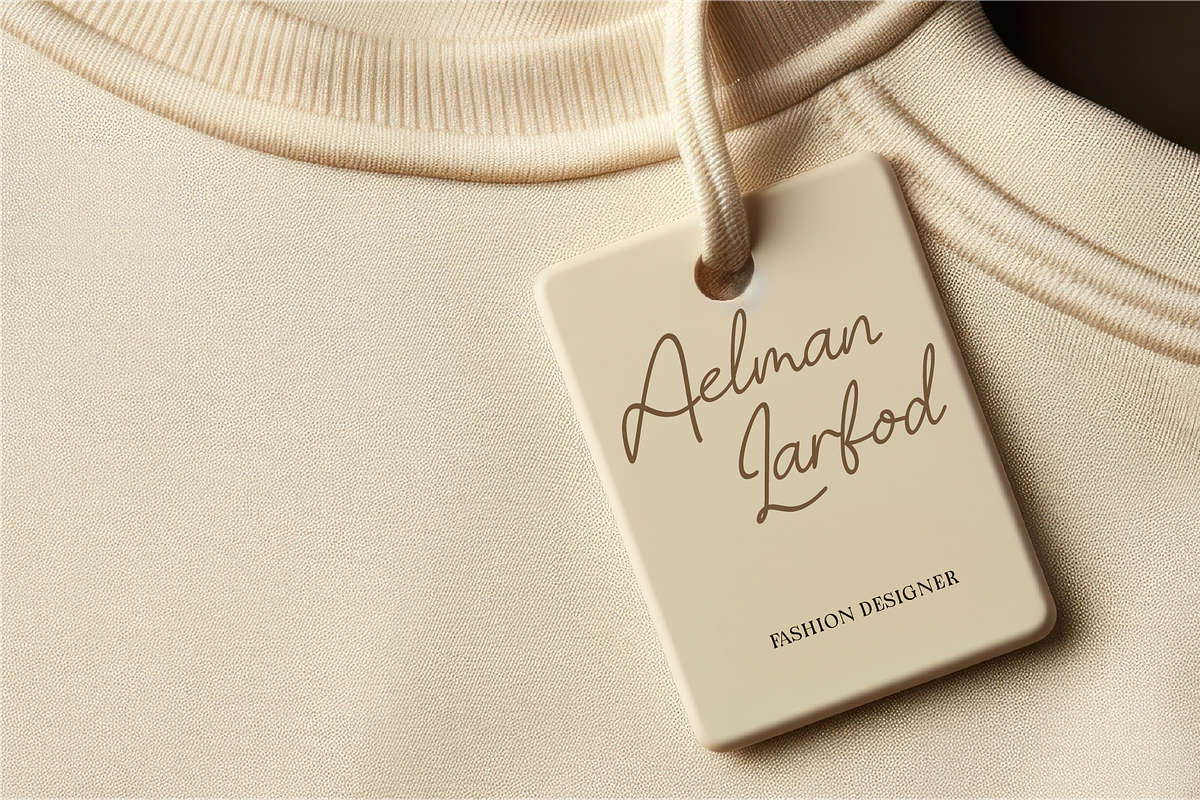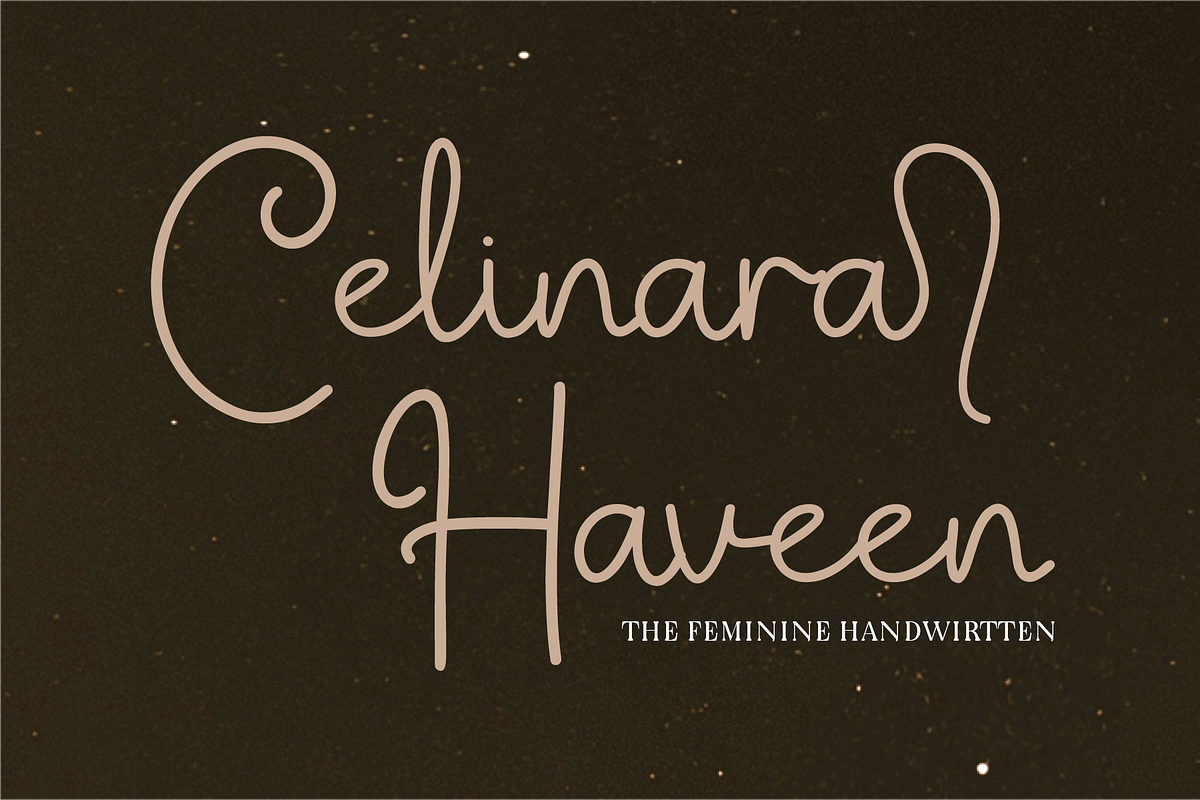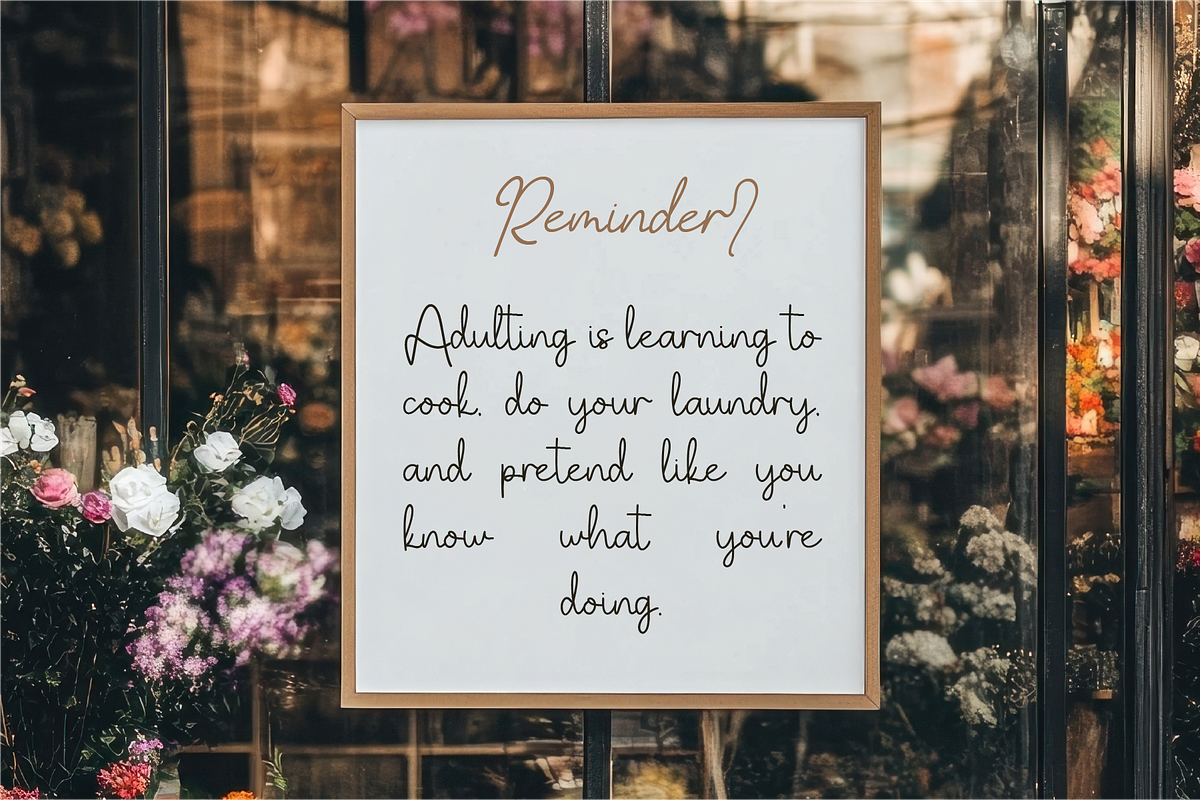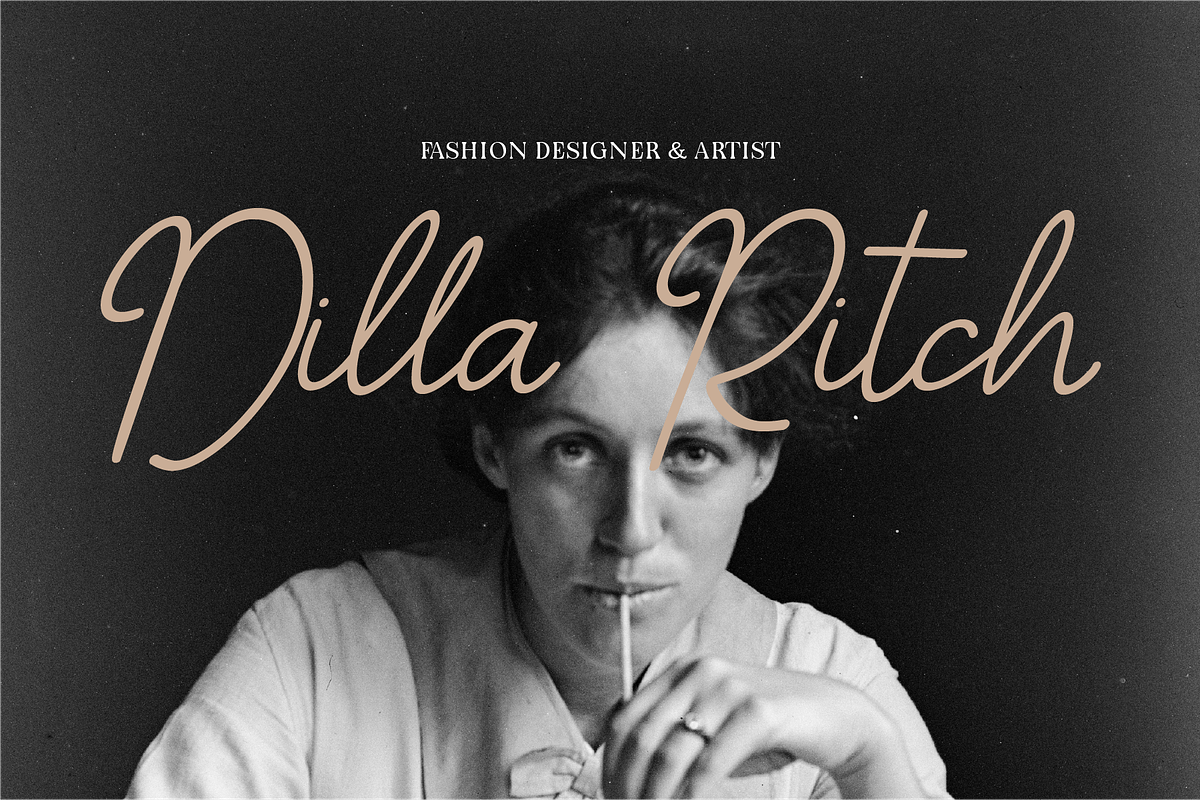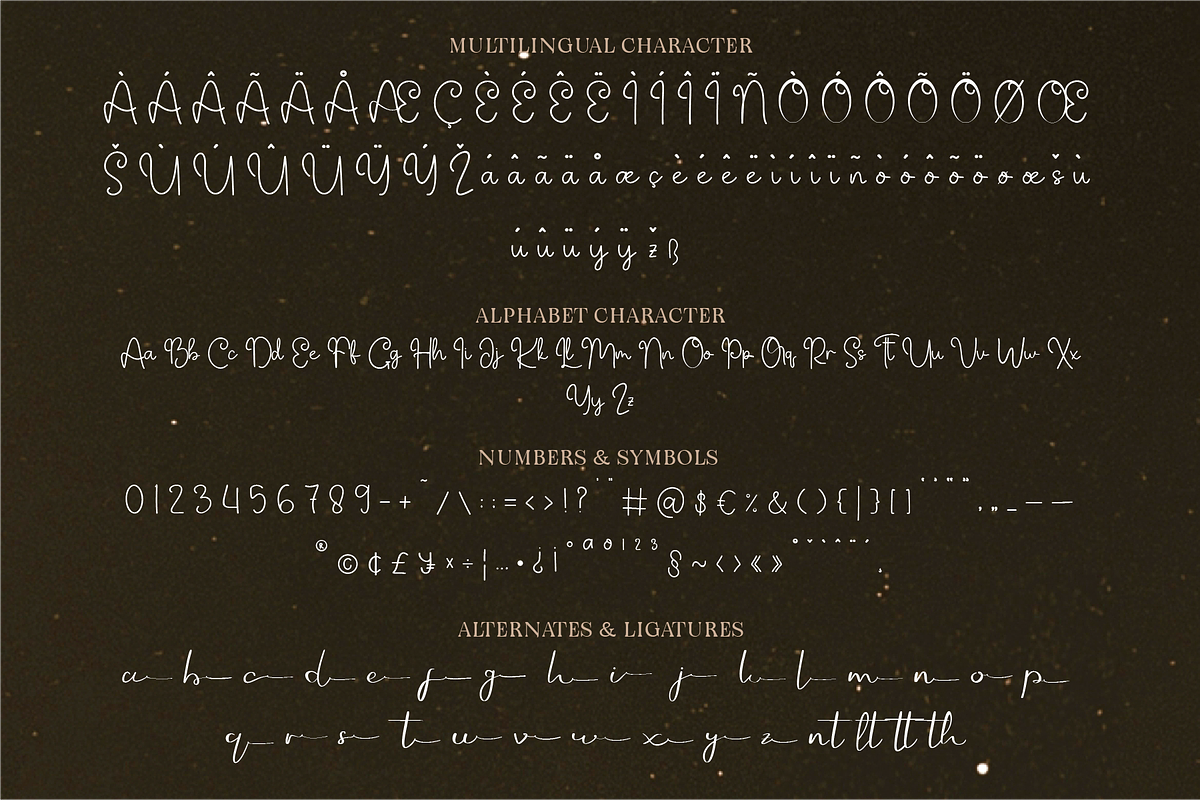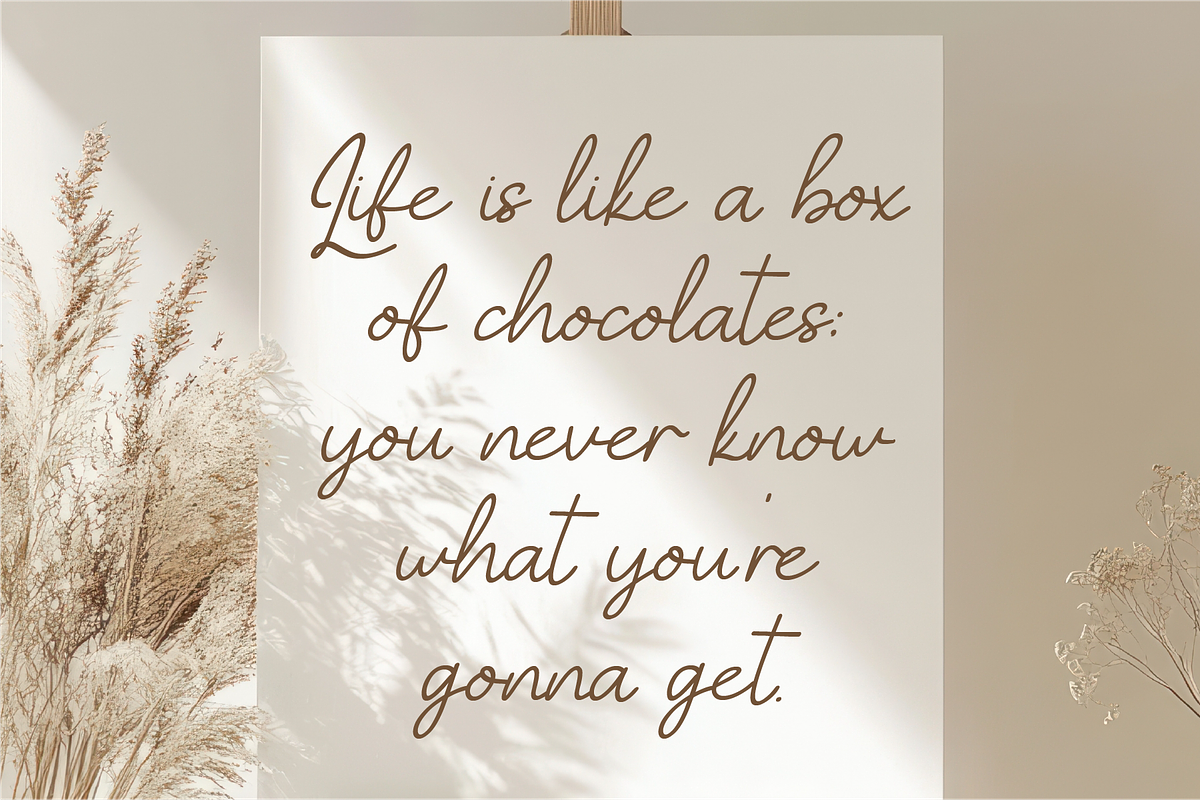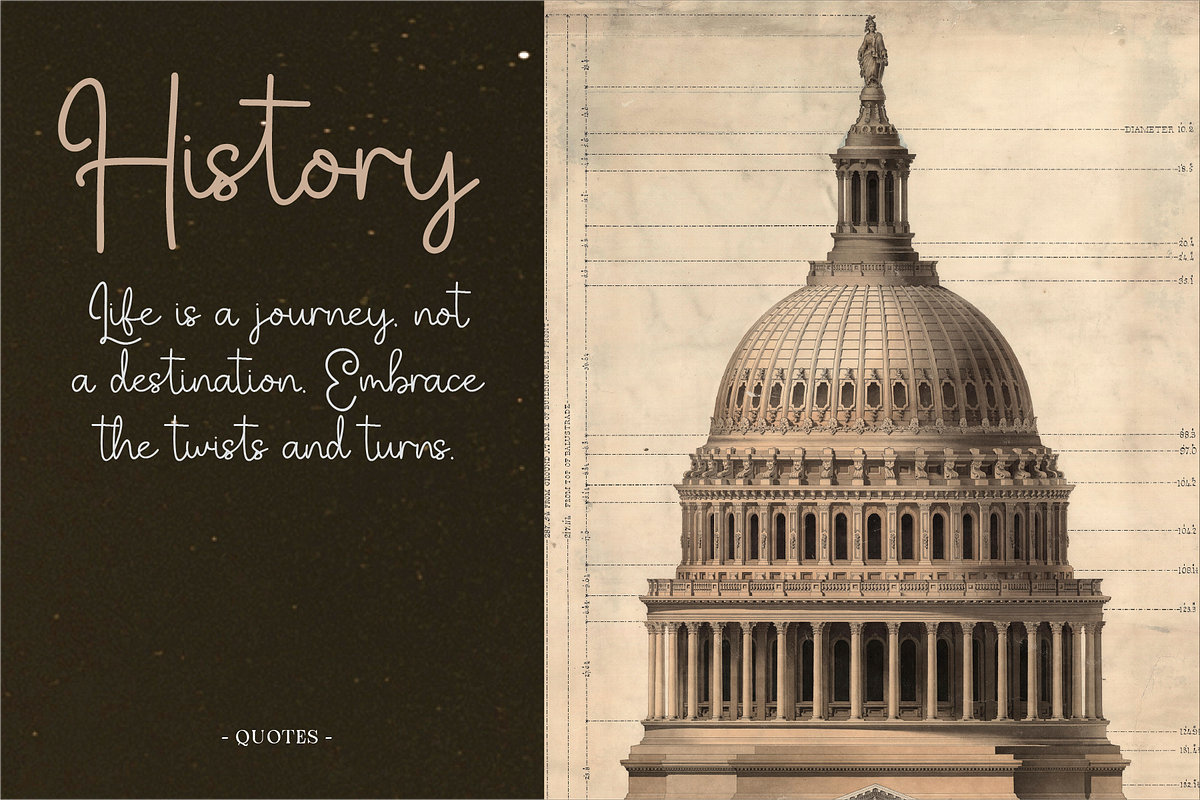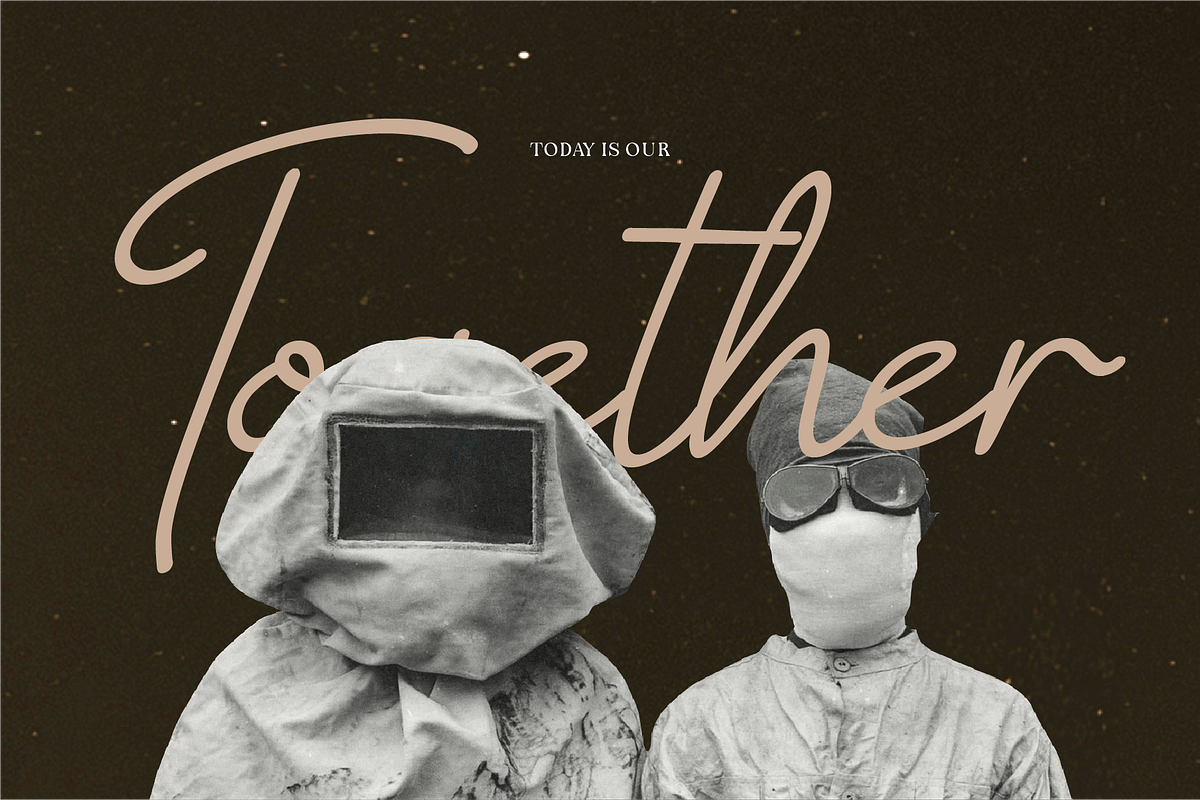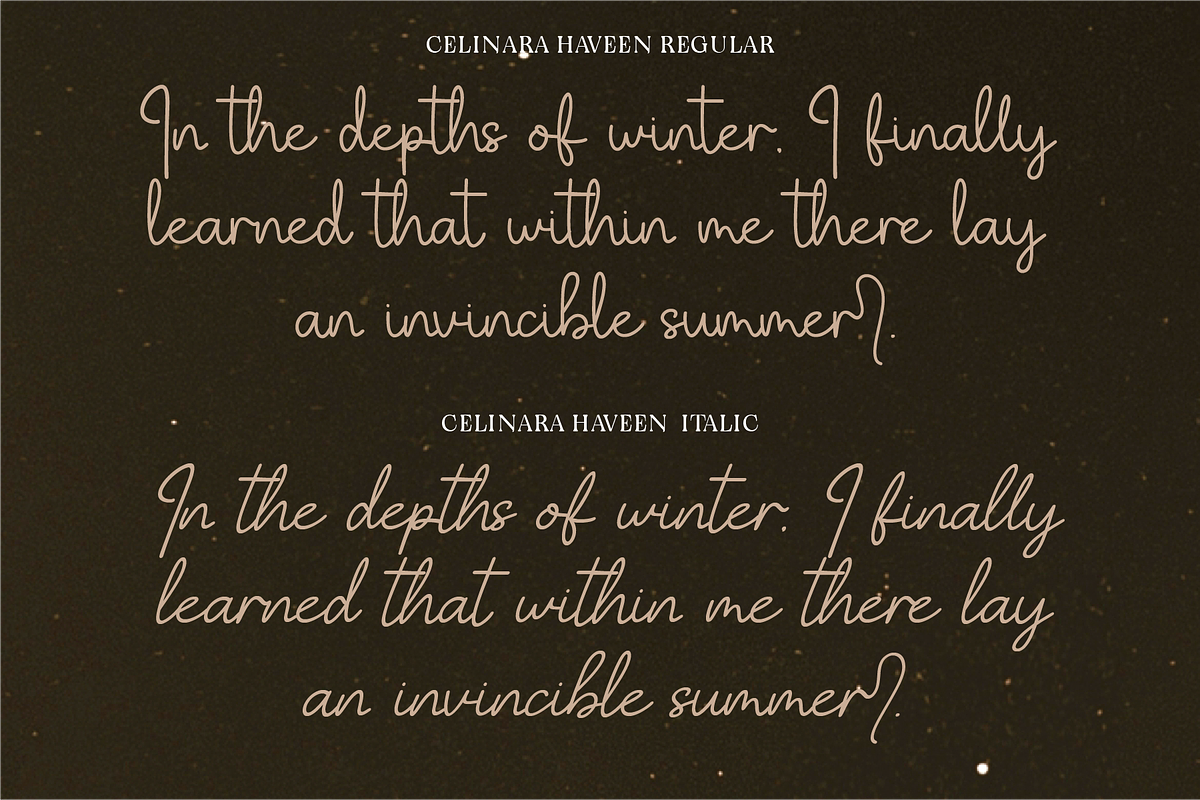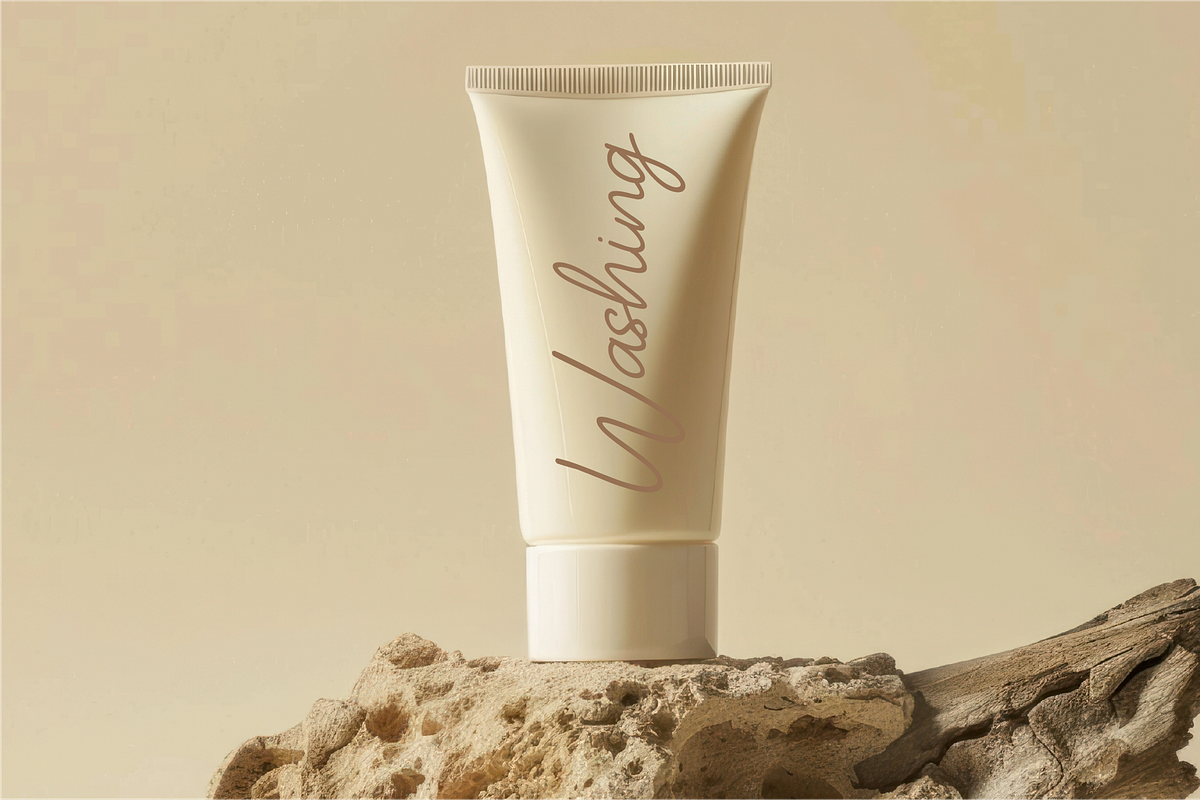
Celinara Haveen
Celinara Haveen is an exquisite handwritten font that embodies femininity, authenticity, and elegance. With its gentle monoline strokes and soft, flowing curves, this typeface captures the essence of a handwritten signature, bringing a personal and sophisticated touch to every design. Perfectly designed to evoke warmth and charm, Celinara Haveen feels natural yet polished, making it ideal for wedding invitations, feminine branding, social media posts, logos, and more. This font is versatile and works beautifully across projects that aim to convey a delicate yet professional tone. Its authentic appeal and stylish personality make it an excellent choice for creative designs that stand out while maintaining a soft, approachable feel.
- Standard Character A-Z, a-z, 0-9, Punctuation & symbols
- Regular & Italic Style
- Include Alternates and Ligatures